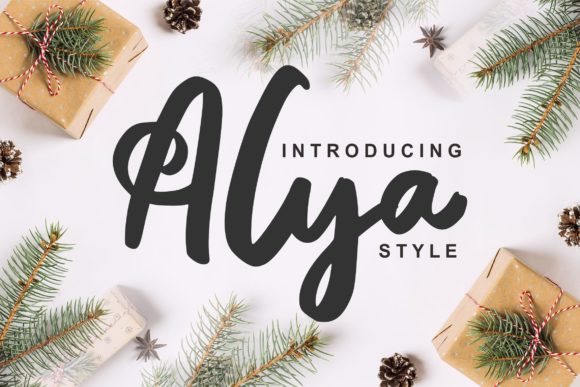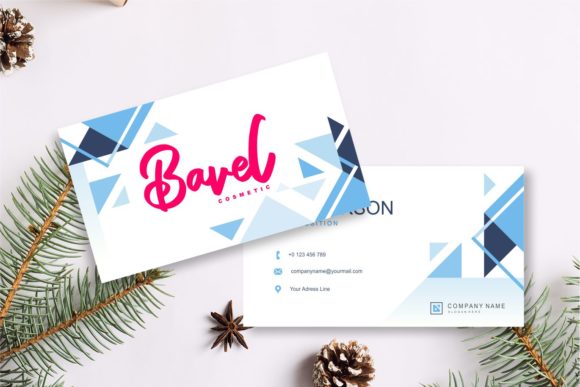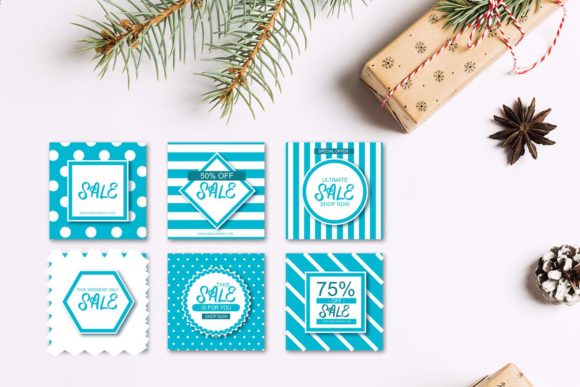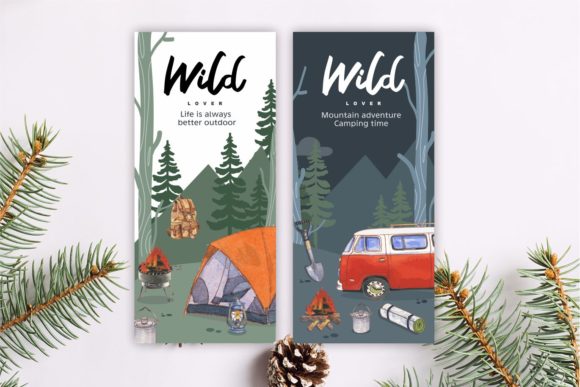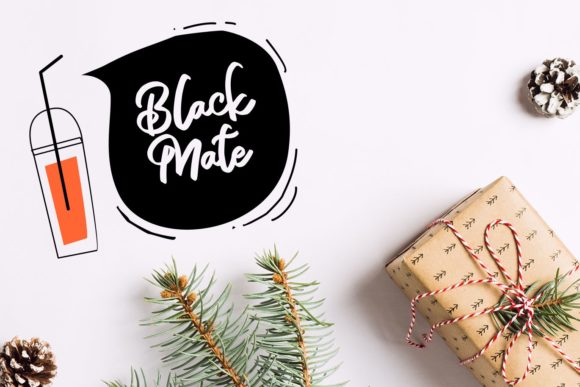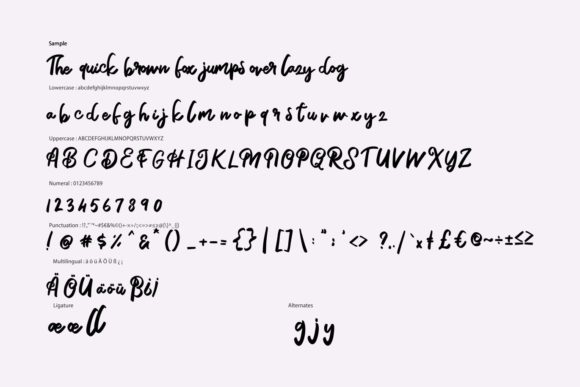
HomeScript FontsAlya Font Script Fonts Alya Font FacebookXPinterestWhatsApp Alya Font Poster 2 Alya Font Poster 3 Alya Font Poster 4 Alya Font Poster 5 Alya Font Poster 6 About Alya Font Alya is a cool and modern script with a modern style. Get inspired by its unique style. DOWNLOAD NOW People also explored Hangout Font Remarkable Play Traffic Cone Font Gobold Font Skeleton Font Monofonto Listing Loves Font Priscilla Font Cherry Blossom Font 338 0 TagsAlya Font Previous articleSagitty List FontNext articleBedmifo Font LEAVE A REPLY Cancel reply Comment: Please enter your comment! Name:* Please enter your name here Email:* You have entered an incorrect email address! Please enter your email address here Website: Save my name, email, and website in this browser for the next time I comment. Personal Use Free Gaboed Personal Use Free Read more about this font Peristiwa Font Personal Use Free Read more about this font The Quick Personal Use Free Read more about this font Caramel Latte Personal Use Free Read more about this font BLOG How to Cut Any Font on Cricut: Convert a Font to SVG (Free) Turn any font into a clean SVG so it cuts crisp on Cricut - a quick 3-step workflow using a free font-to-SVG tool. How to Install and Use Fonts on Windows, macOS, and Web Projects Using Fonts in Digital Marketing: Tips to Strengthen Your Brand Identity Free vs Paid Fonts: Why Investing in Premium Fonts Is Worth It